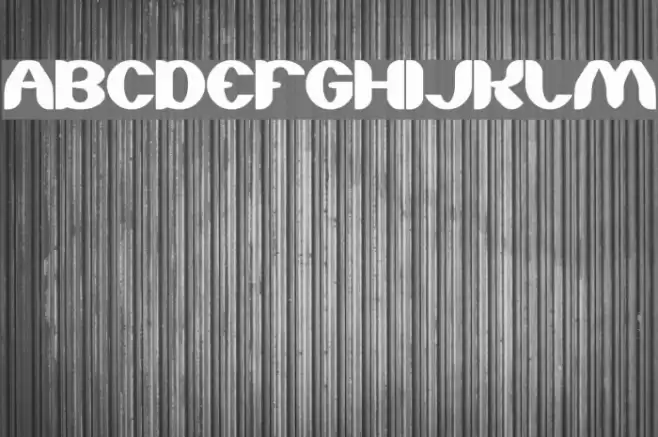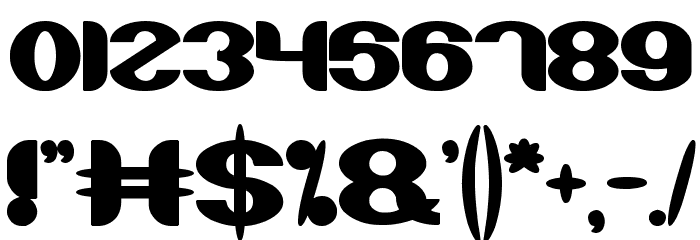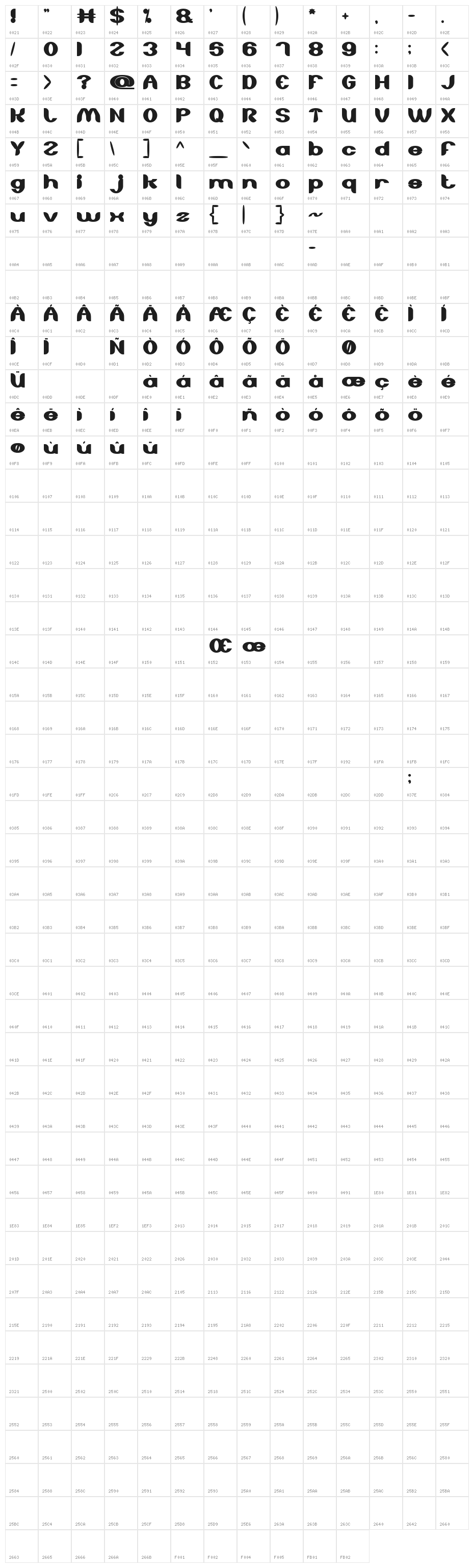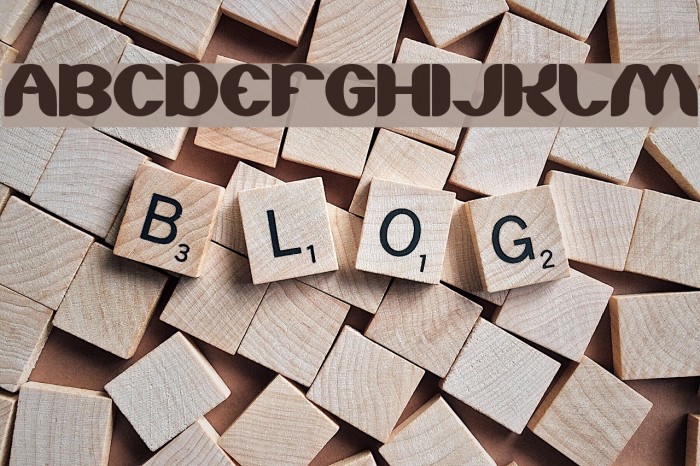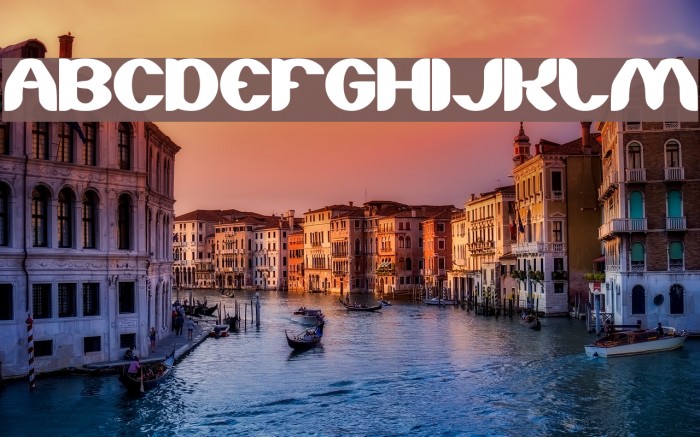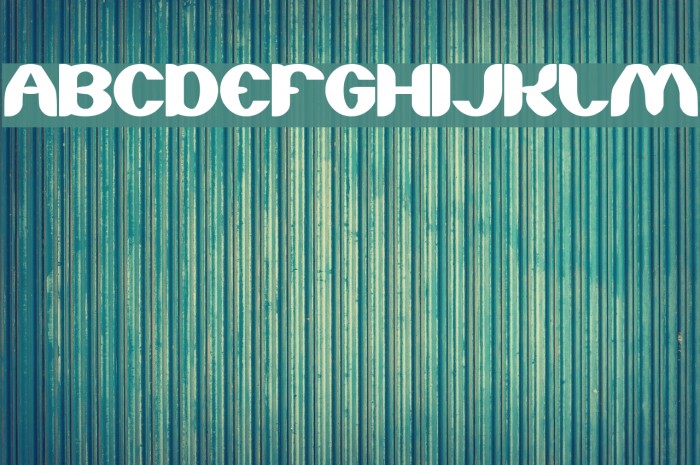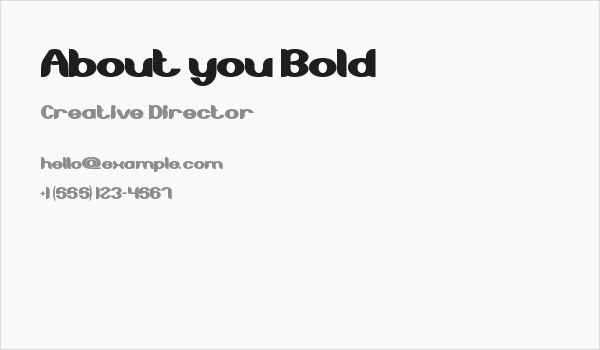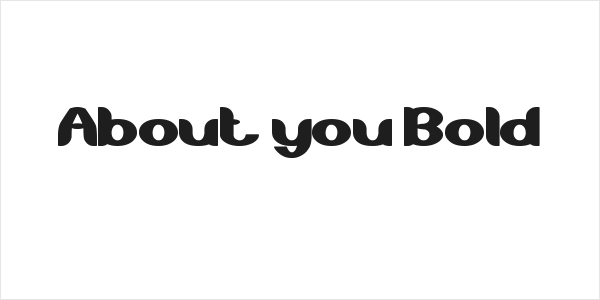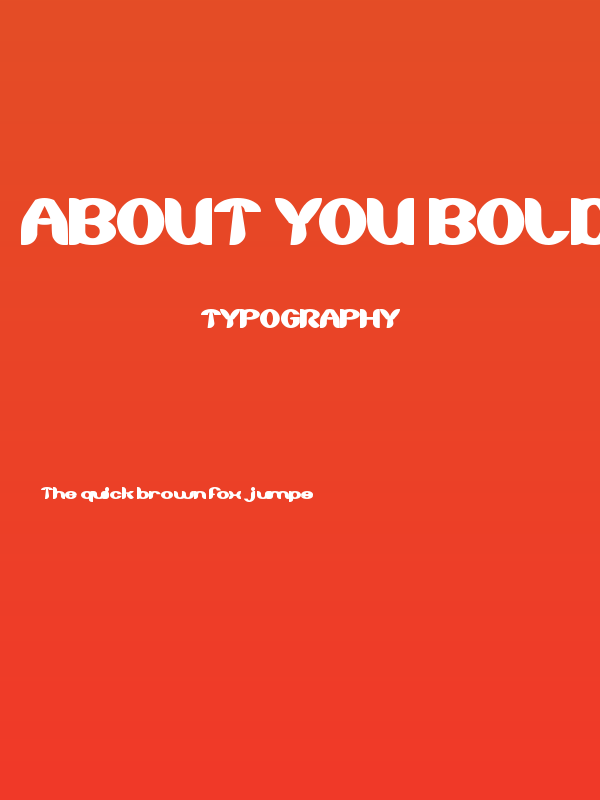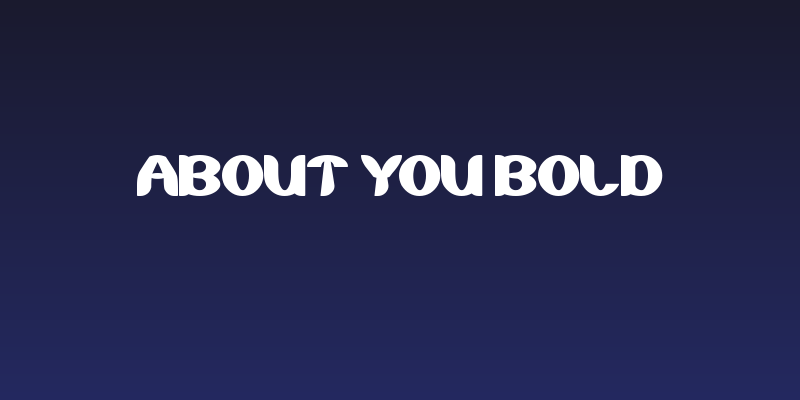
About you Bold Font
About you Bold Description
This font features a bold and playful design with thick, rounded strokes that give it a bubbly and energetic appearance. The characters are uniquely crafted with a mix of curves and straight lines, creating a dynamic and eye-catching style. The uppercase and lowercase letters maintain a consistent weight, enhancing the font's uniformity. The numbers and special characters are equally bold, ensuring readability and visual impact. This font's distinctive style makes it ideal for projects that require a fun and modern touch.
A bold, playful font with thick, rounded strokes and a dynamic style from Uncategorized fonts.
- Proposed Projects: Ideal for branding, posters, children's books, and playful graphic designs.